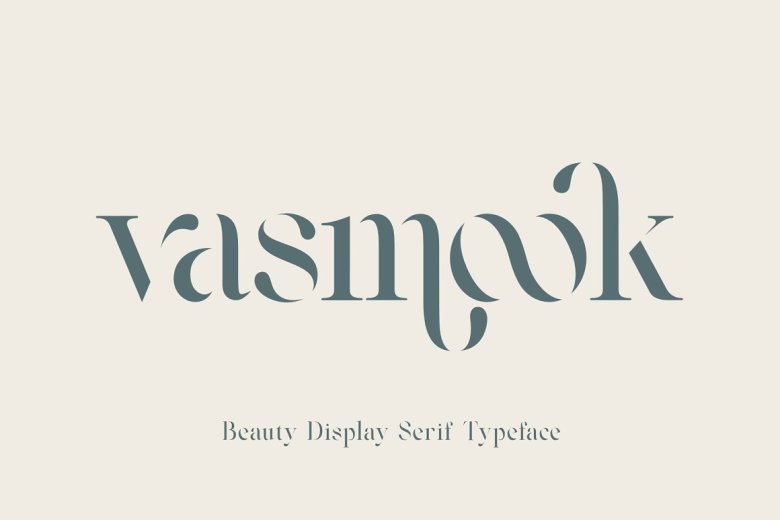
Vasmook Font
Vasmook – Beauty Display Serif – Modern Classy Fancy Font. Vasmook font includes some ligatures so you can combine it to make a perfect typography design. Vasmook Elegant Beauty Display Serif Font is perfect for your up coming projects.
Vasmook Serif Font